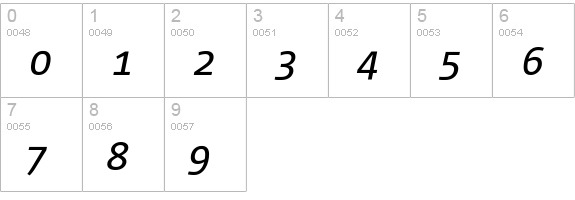
CorpidOffice Italic Font Details
CorpidOffice Italic is a distinctive, italic variant in the CorpidOffice typeface family \xE2\x80\x94 well suited to design and typography projects.
Introducing CorpidOffice Italic font – a sleek and modern typeface designed to elevate your design projects with a touch of elegance and sophistication. The italic style of this font adds a sense of fluidity and movement, making it perfect for conveying a sense of dynamism and creativity in your designs. With its clean lines and versatile design, CorpidOffice Italic font is ideal for a wide range of applications, from branding and advertising to editorial and web design. Whether you’re looking to create eye-catching headlines or add a touch of flair to your body text, this font is sure to make a lasting impression. Best of all, CorpidOffice Italic font is available for free download exclusively at FontsMarket.com. This means you can access this high-quality typeface without any cost, making it an excellent choice for designers on a budget or anyone looking to add a stylish font to their collection. Don’t miss out on the opportunity to enhance your projects with the elegant and versatile CorpidOffice Italic font today!